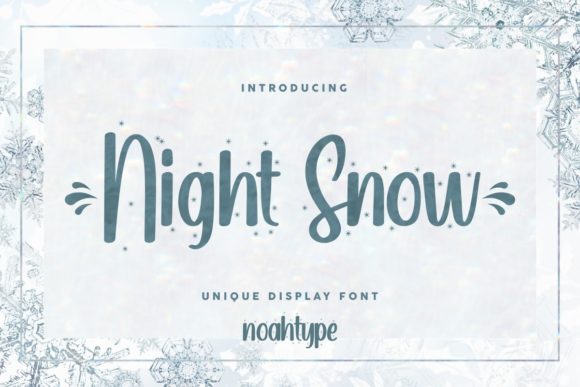
Journey into the world of Night Snow Font, a script font that enchants with its frosty elegance. Drifting like snowflakes on a tranquil winter's day, this font is more than just a collection of letters; it's a symphony of flowing lines and delicate curves that dances across your screen.
Picture your words adorned in the beauty of Night Snow Font, their edges adorned with a subtle touch of frost, their characters gleaming like sparkling crystals. This font is not just a tool for communication; it's an art form that elevates your words into a mesmerizing spectacle.
Imagine your book covers adorned with Night Snow Font, their titles transformed into captivating works of art that beckon readers into the enchanting world within. Picture your clothing designs infused with the font's icy charm, creating garments that shimmer and allure like a winter night's dream.
For invitations, Night Snow Font weaves a spell of elegance and sophistication. Your guests will be captivated by the font's delicate touch, their hearts warmed by its subtle hint of winter magic. And when it comes to kids, Night Snow Font becomes a playful companion, its whimsical style sparking imaginations and bringing smiles to their faces.
In the realm of logo branding, Night Snow Font lends an air of professionalism and distinction. Its refined lines create logos that exude confidence and make a lasting impression on your audience. For school projects and reports, Night Snow Font becomes a trusted ally, its clear and legible characters ensuring that your words shine through with clarity and precision.
Bring your packaging designs to life with Night Snow Font. Its enchanting style transforms ordinary products into extraordinary gifts, their surfaces adorned with a touch of winter's magic. And for screen printing, Night Snow Font adds a touch of icy allure, creating designs that pop with originality and flair.
Embrace the enchanting allure of Night Snow Font and watch as your designs take on a new life, captivating audiences with their ethereal beauty. Download Night Snow Font today and embark on a creative journey like no other.